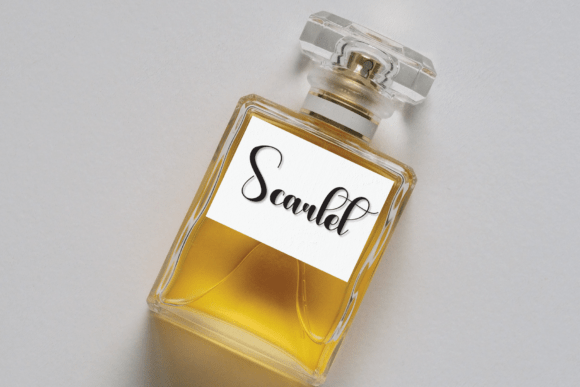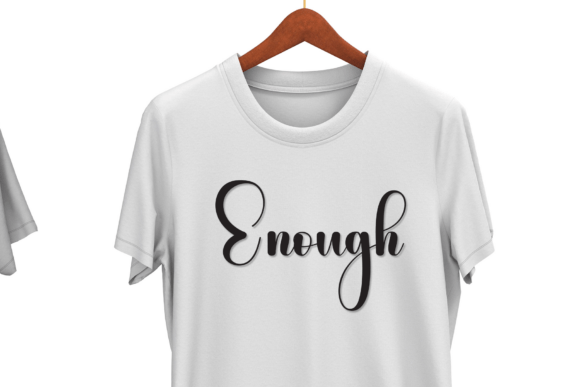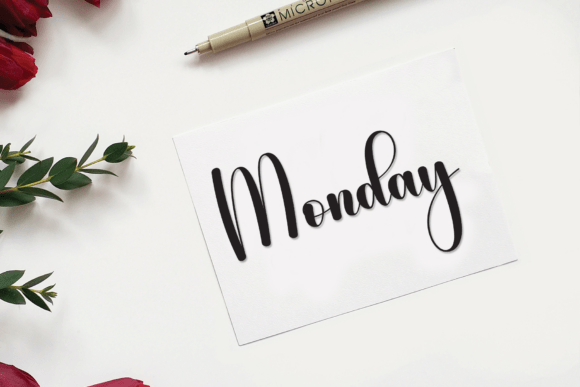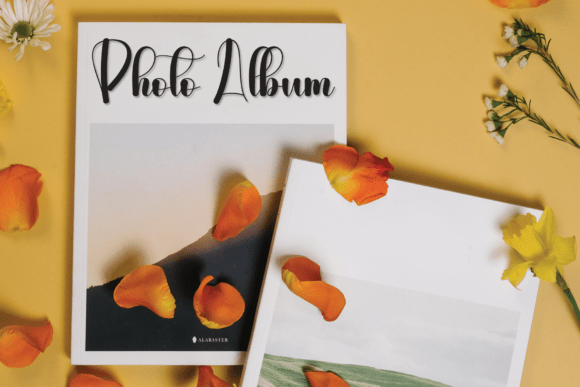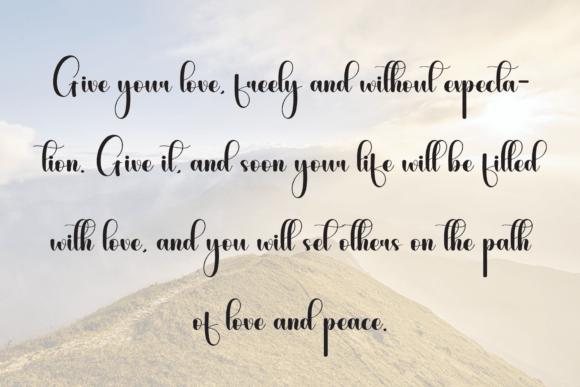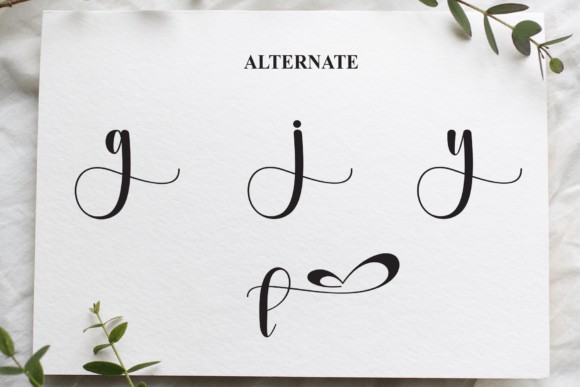
The Art of Handwritten Elegance: Introducing the Autography Font
As a designer, have you ever found yourself pouring over a blank page, trying to conjure up the perfect handwritten font to capture the essence of your brand? The search is over, as we introduce the Autography Font, a sophisticated and modern typeface that masterfully blends the spontaneity of a signature with the legibility of a professional font.
With its dramatic swashes and unique ligatures, the Autography Font is designed to give your brand a bespoke, high-end feel that exudes authority and style. Whether you’re working on a fashion logo, photography watermark, or editorial signature, this font is the perfect choice to elevate your design game.
- Unique Characteristics: Features a unique blend of modern and vintage elements, with intricate details and flourishes.
Autography Font Review
When I first laid eyes on the Autography font, I was immediately drawn to its elegant, cursive design. ✨ It’s perfect for adding a touch of sophistication to your projects, whether it’s a wedding invitation or a branding project. The font’s fluid lines and organic feel make it feel almost handwritten, which is exactly what it’s meant to evoke.
Here are some things that work well in the Autography font:
- ✨ Elegant, cursive design that’s perfect for adding a touch of sophistication
- ✨ Organic feel that’s reminiscent of handwriting
- ✨ Wide range of languages supported, making it a great choice for international projects
- ⚠️ Limited font weights and styles, which may not be ideal for projects that require a lot of flexibility
- ⚠️ Not ideal for use in small font sizes, as the lines can become too thin and difficult to read
Overall, I’d give the Autography font 4 out of 5 stars. It’s a beautiful font that’s perfect for adding a touch of elegance to your projects. However, it may not be the best choice for every project, and it’s worth considering the limitations before making a decision.
Use Autography Font to create a personal and unique touch in your designs. Experiment with different font sizes, styles, and colors to add visual interest. Consider combining Autography Font with other fonts to create a visually appealing contrast.
Autography Font is commonly used in creative and personal projects, such as:
– Invitations and event announcements
– Personalized gifts and stationery
– Handmade crafts and art projects
Alternatives to Autography Font for Designers
Great Vibes is a modern, elegant script font that’s perfect for creating a luxurious and sophisticated look. It’s ideal for use in high-end branding, invitations, and wedding stationery. Compared to Autography Font, Great Vibes has a more refined and polished feel, making it a great choice for designers who want to add a touch of sophistication to their designs.
Carolyna Pro is a beautiful, handwritten font that’s great for creating a personal and emotional connection with your audience. It’s perfect for use in social media graphics, advertising, and editorial design. Compared to Autography Font, Carolyna Pro has a more playful and whimsical feel, making it a great choice for designers who want to add a touch of personality to their designs.
Alex Brush is a elegant, handwritten font that’s perfect for creating a warm and inviting look. It’s ideal for use in packaging design, branding, and editorial design. Compared to Autography Font, Alex Brush has a more rustic and earthy feel, making it a great choice for designers who want to add a touch of natural elegance to their designs.